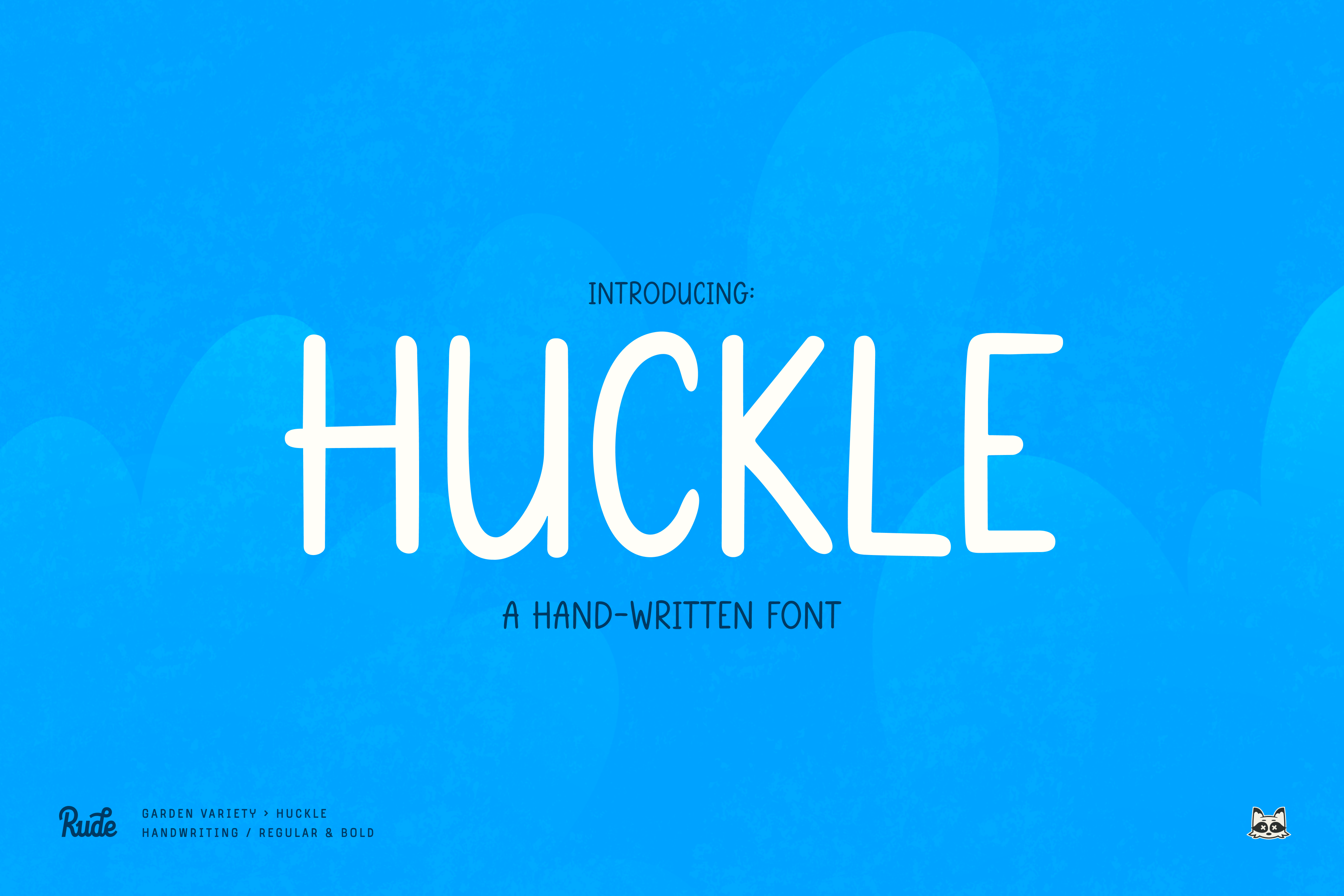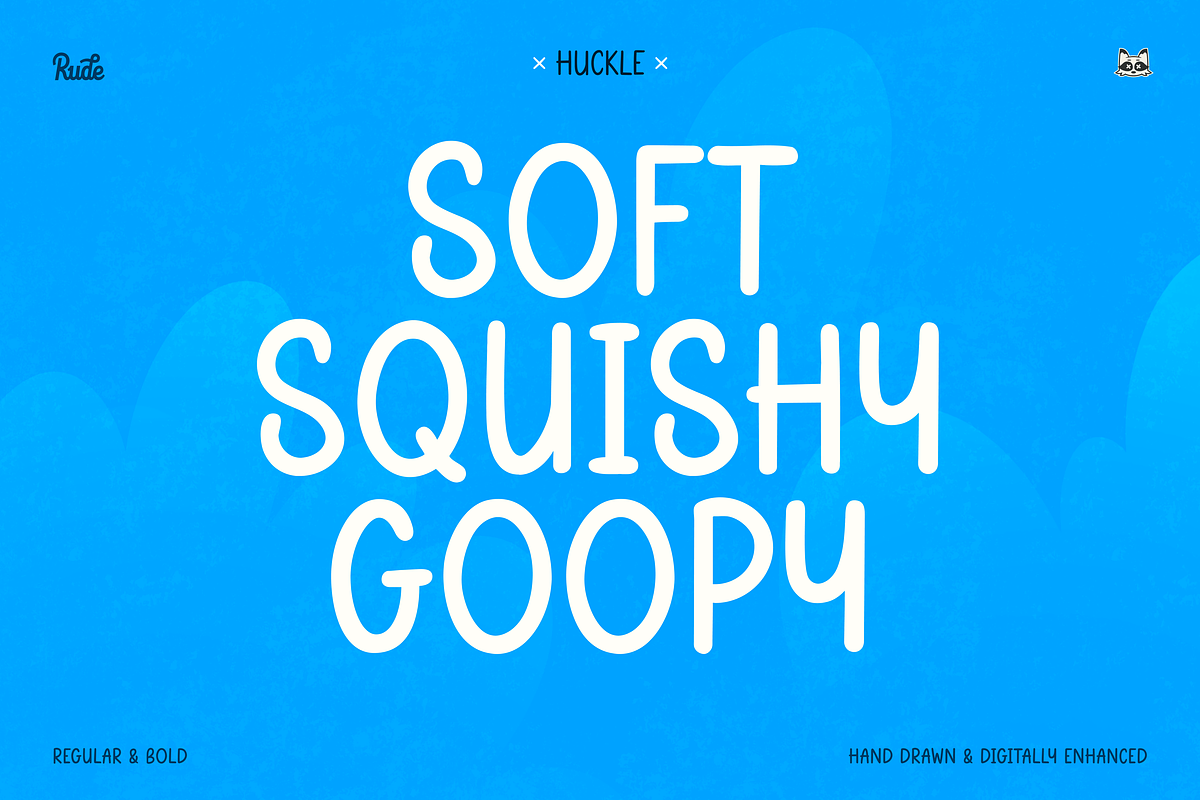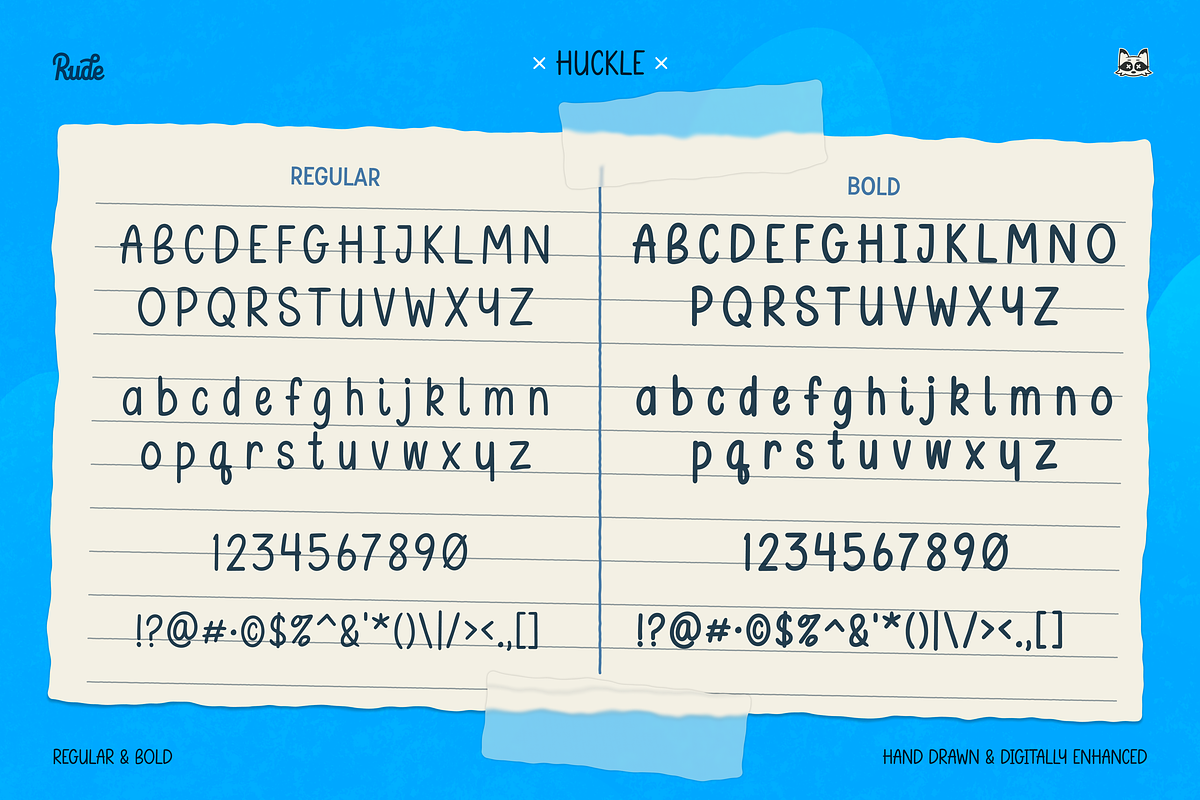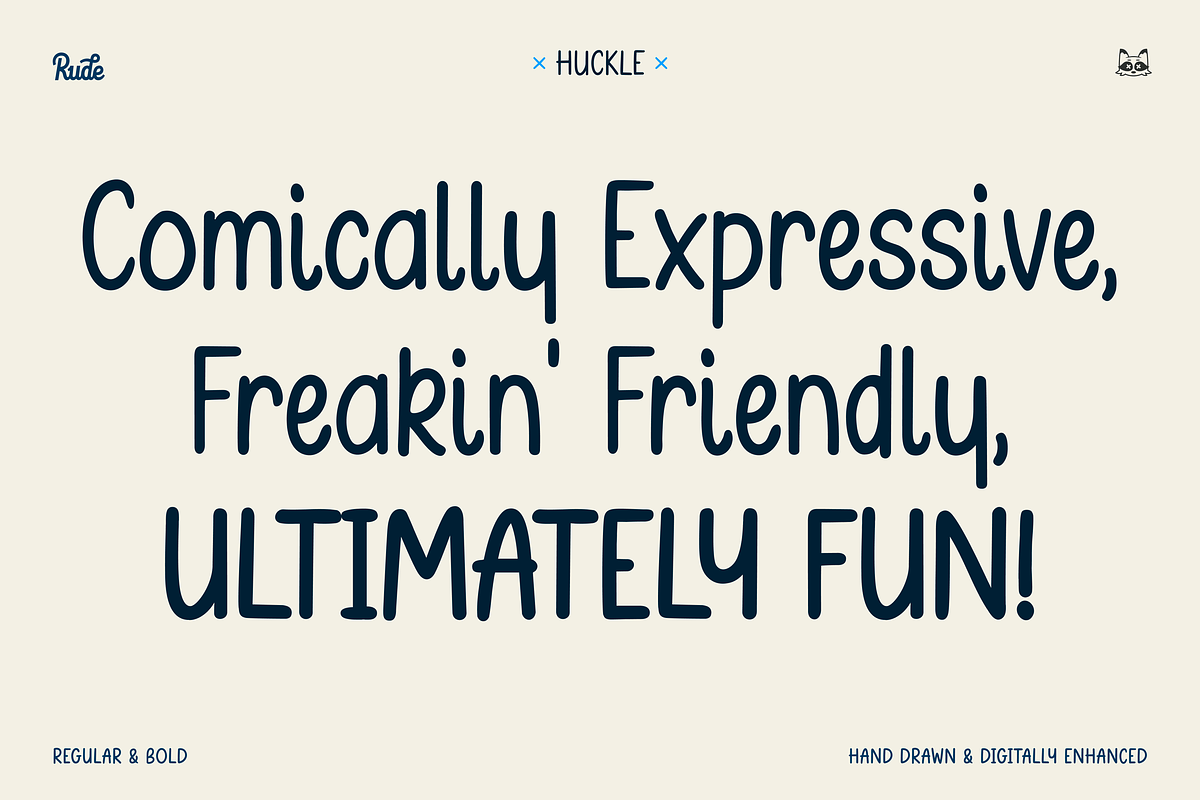
Huckle Handwritten Font
A hand written and digitally optimized font. Huckle is inspired by picture books and cartoons and expresses a lighthearted, fun, and friendly vibe. Huckle is hyper-legible and offers regular and bold weights.